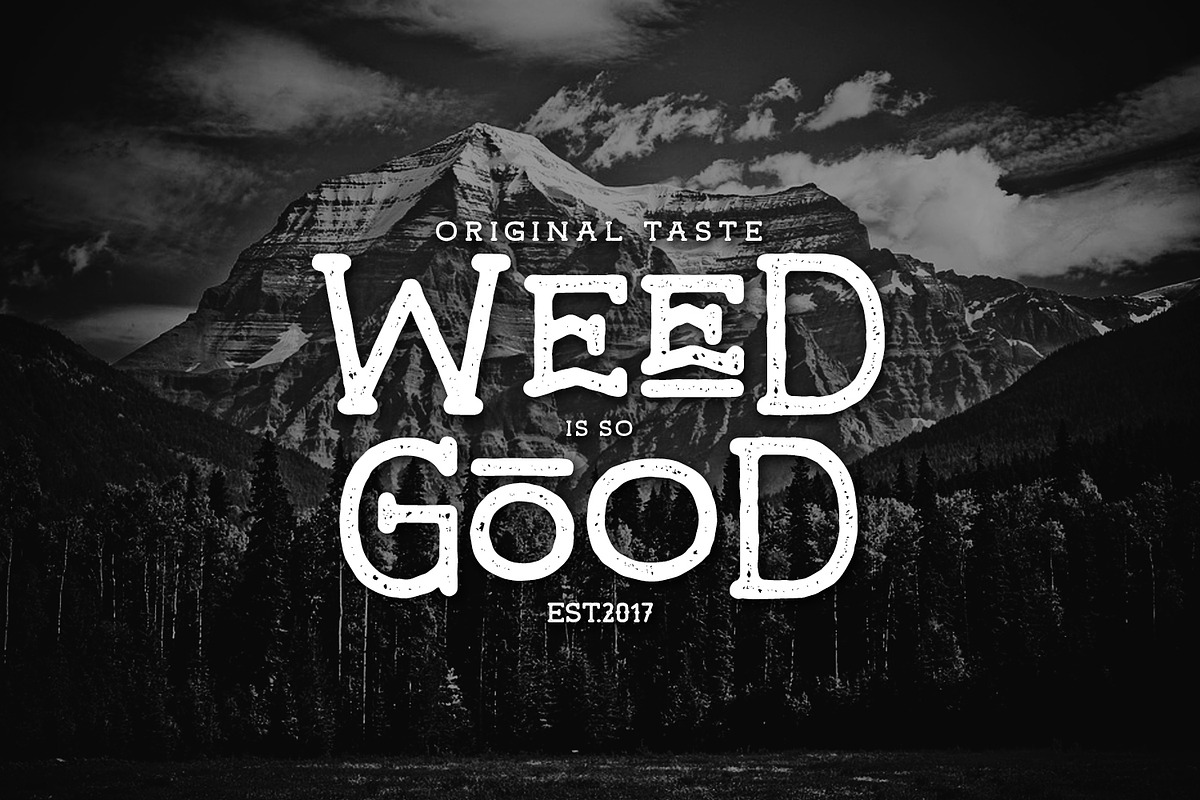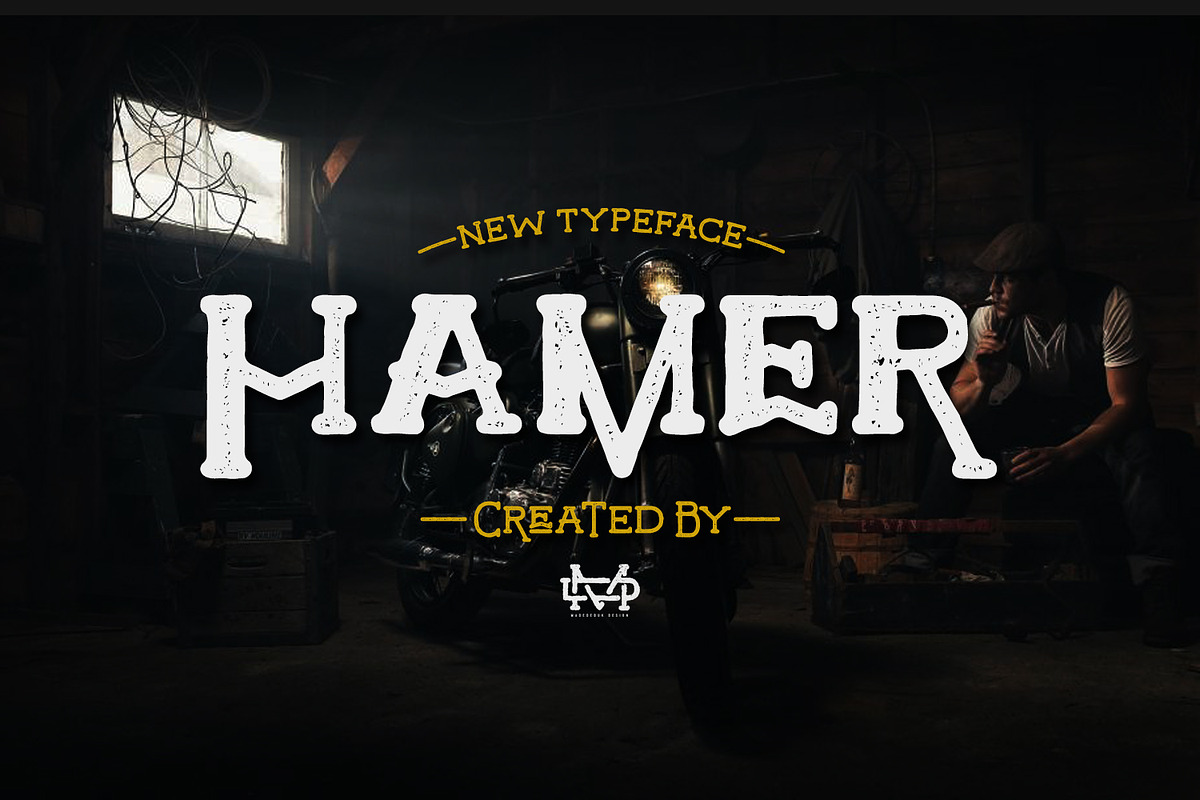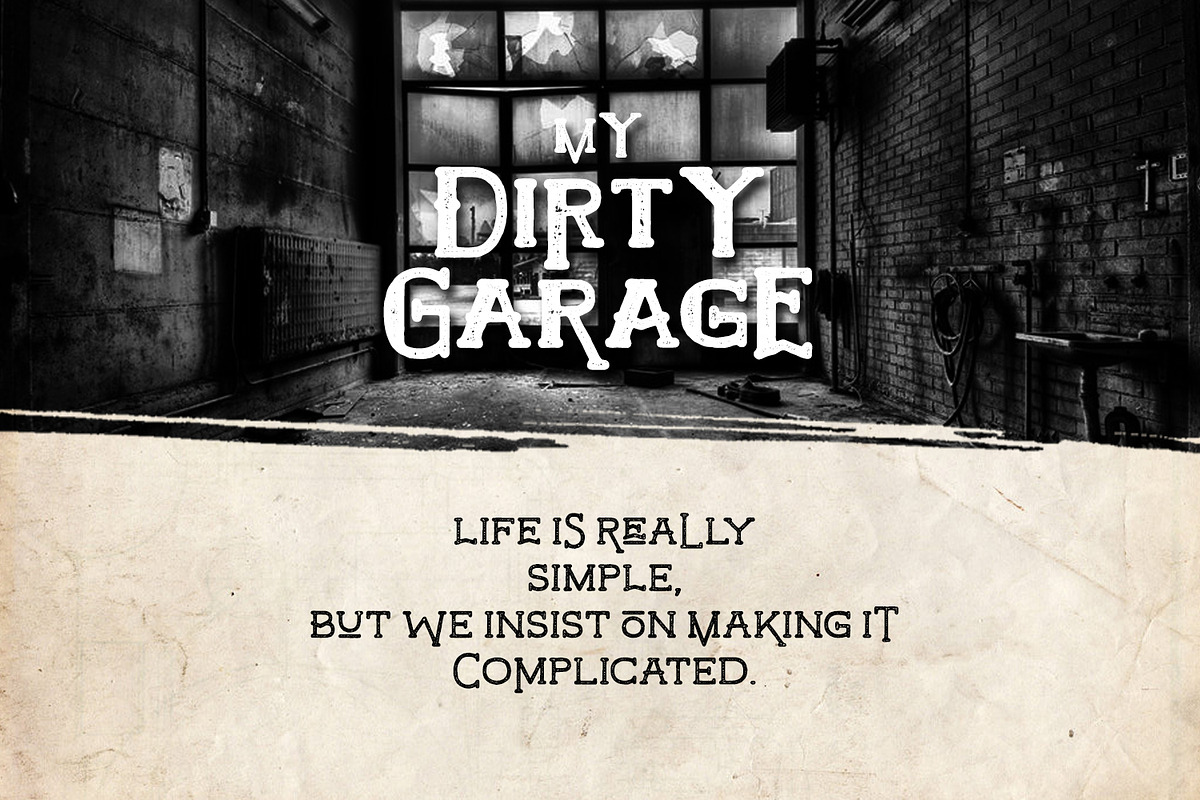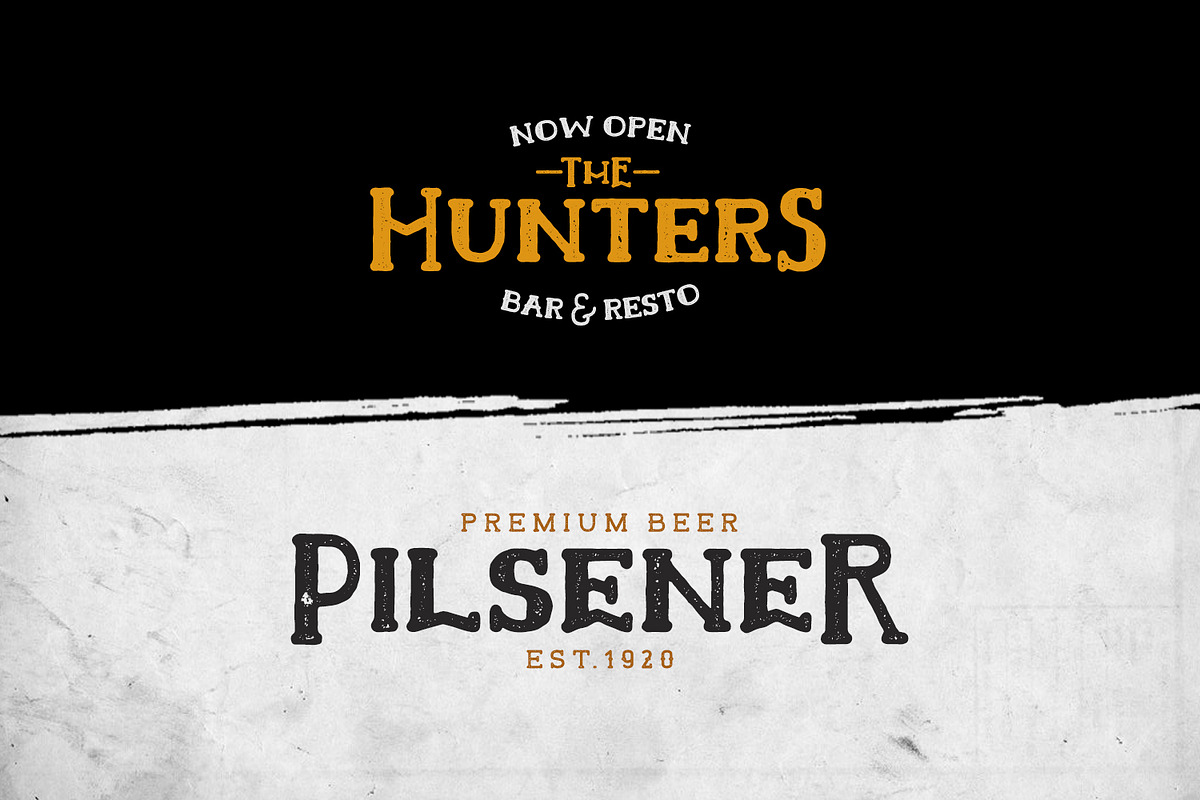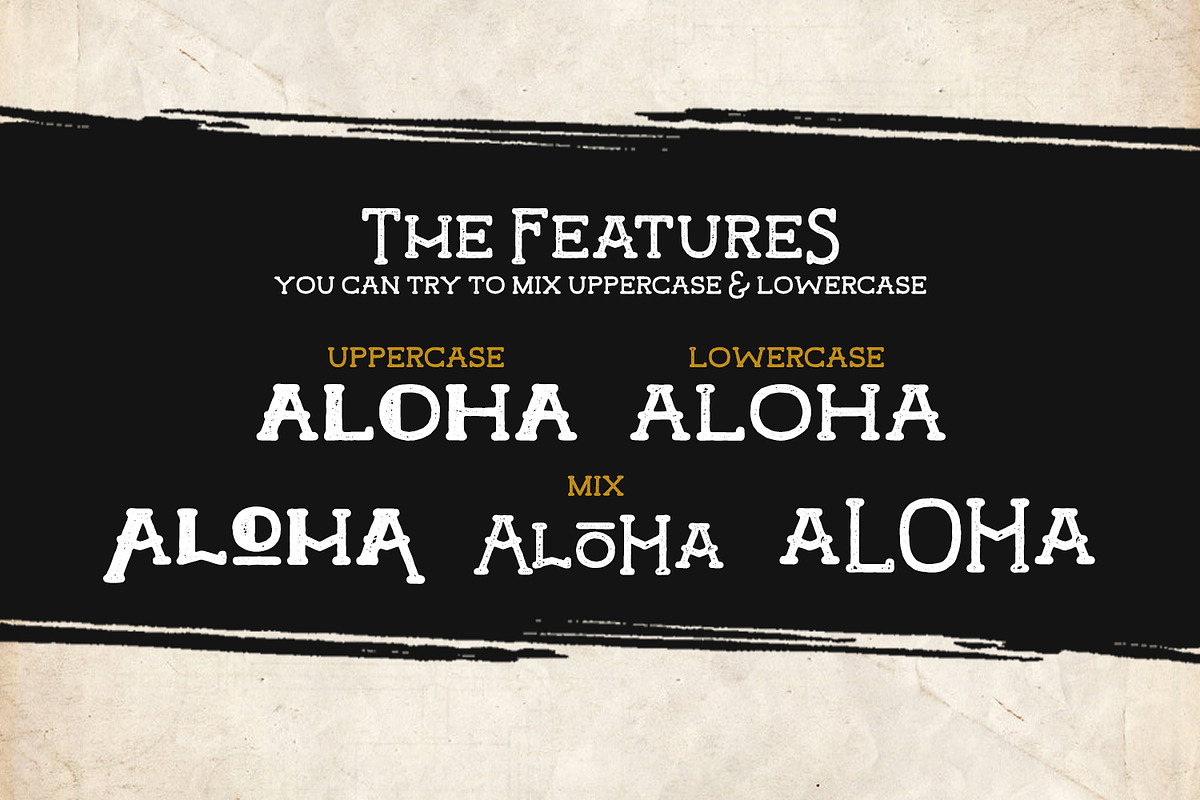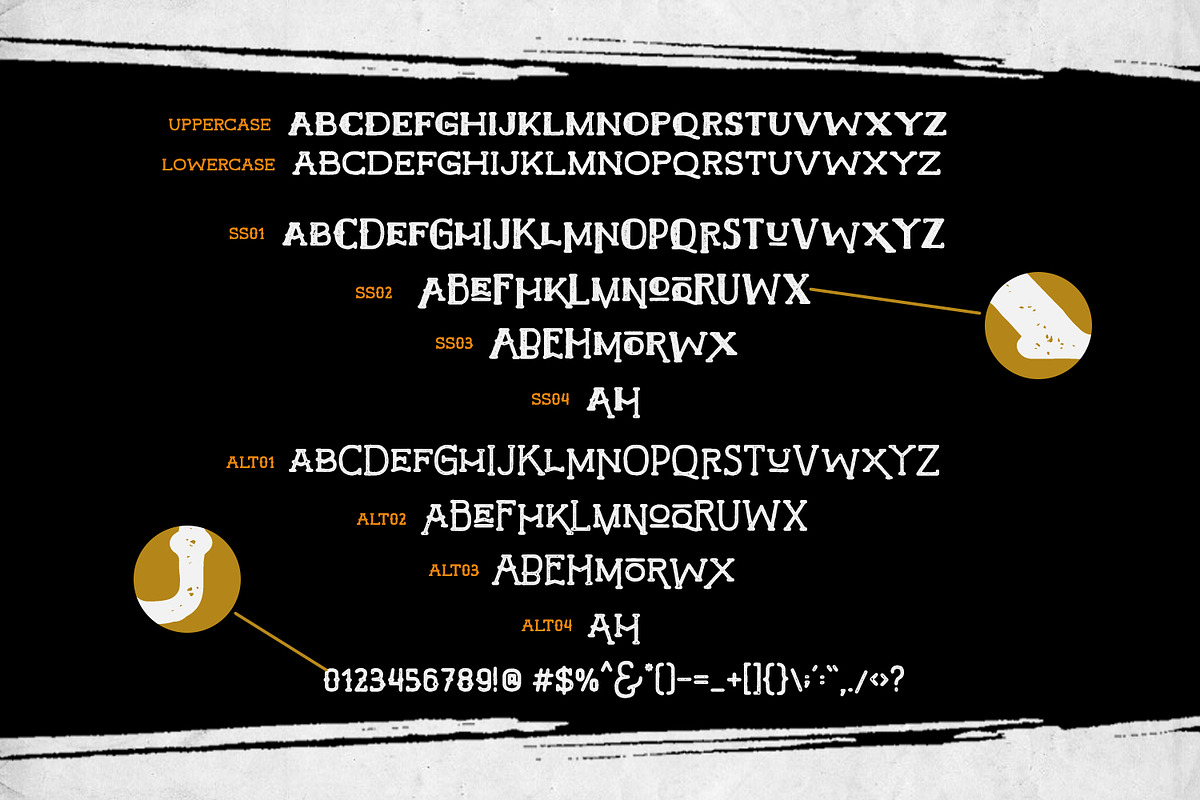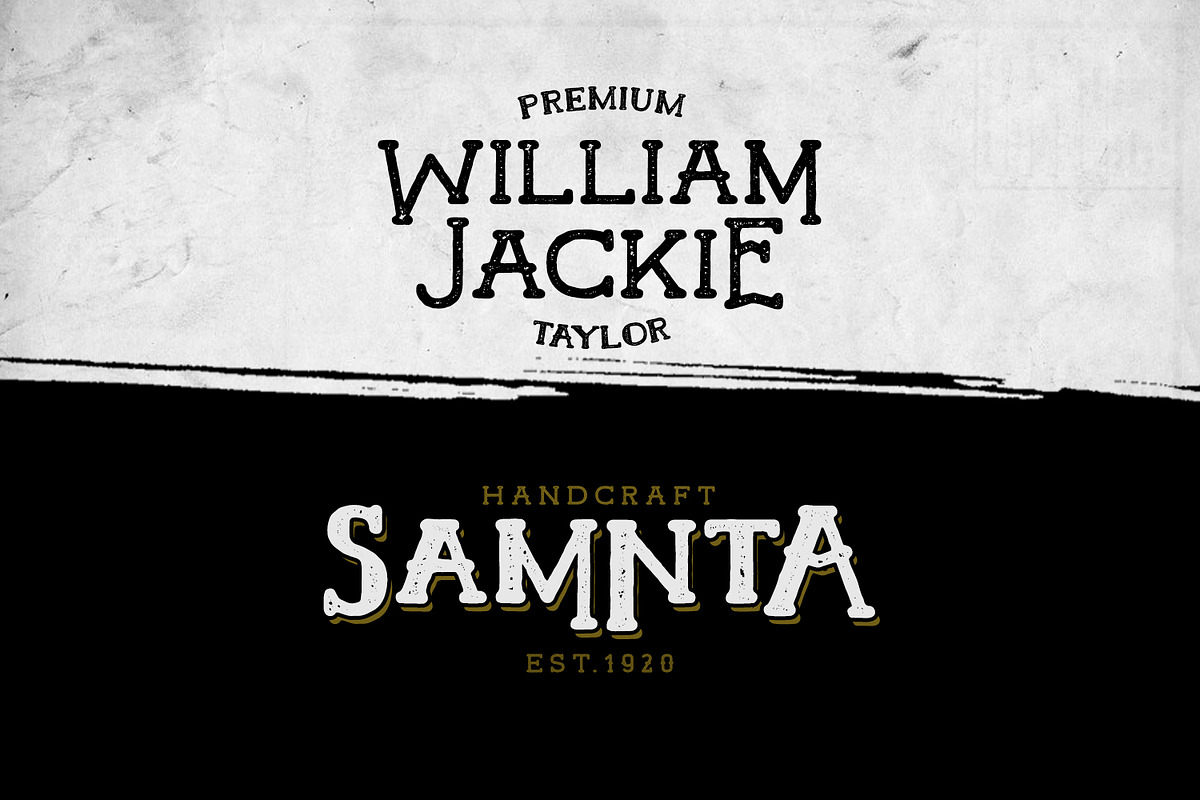
Hamer Typeface
Hello I'm really excited to introduce Hamer is new old school typeface with vintage look style! Hamer is available 2 different stylistic Hamer perfect for poster design, book covers, merchandise, fashion campaigns, newsletters, branding, advertising, magazines, greeting cards, album covers, and quote designs and more.
Why Hamer Typeface is worth a look
Hamer Typeface by madeDeduk fits naturally into Branding, posters, packaging, typography.